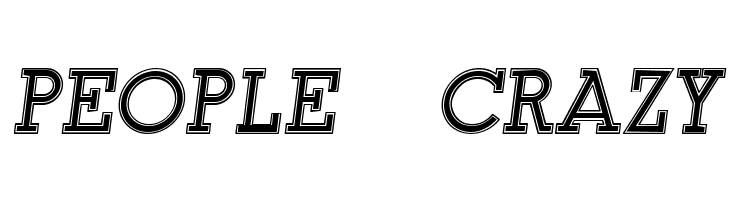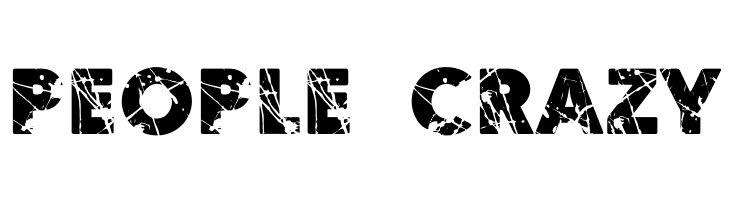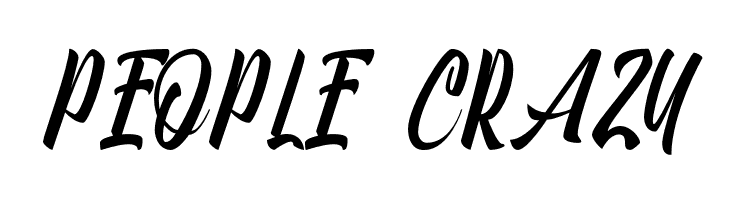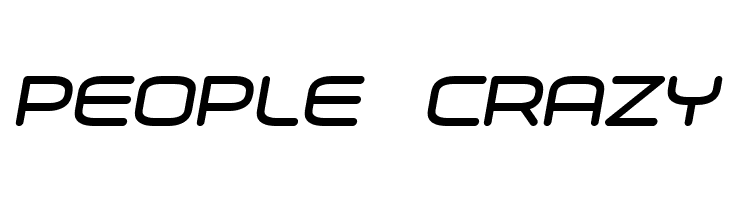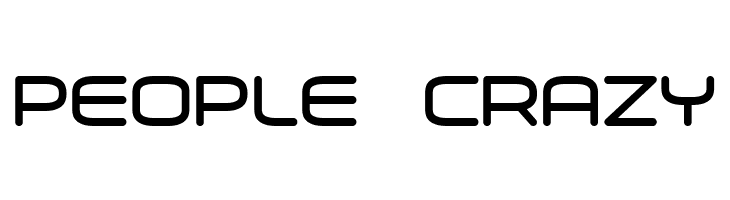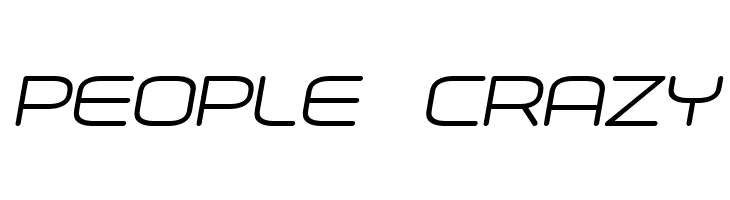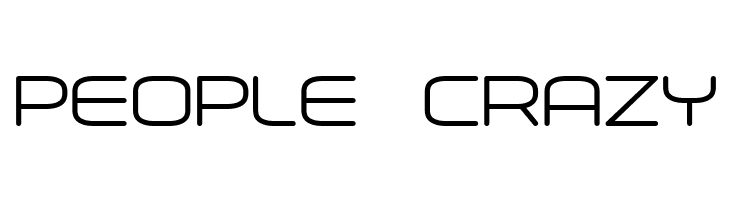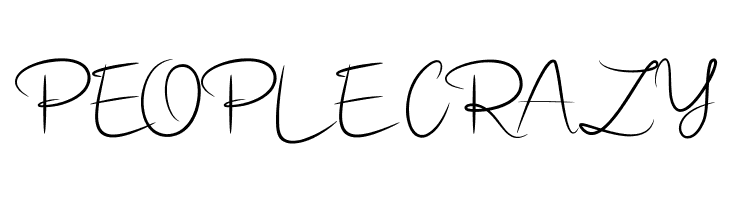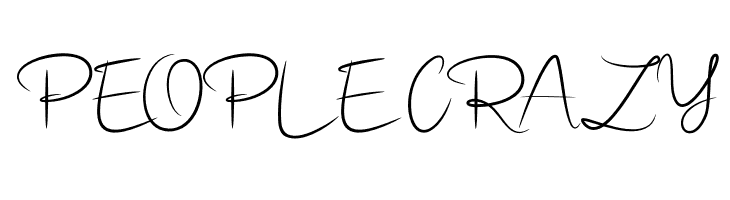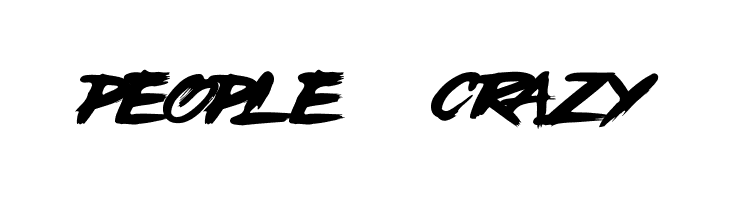
A classic serif font with elegant strokes and a timeless design.
An elegant italic serif font with smooth curves and sharp serifs.
Bold, italicized font with a three-dimensional outlined style.
A bold, double-line outlined font with a structured and symmetrical design.
A bold, dynamic script font with fluid, connected letterforms.
A bold, expressive handwritten font with high contrast and dynamic strokes.
A flowing, cursive font with elegant, interconnected letters and a handwritten style.
A modern, elegant script font with flowing, connected characters.
A bold, flowing script font with interconnected letters and a dynamic style.
A bold, playful font with a hand-drawn, organic style.
A bold, italic script font with a handwritten, flowing style.
A bold, distressed font with a rugged, vintage aesthetic.
A decorative font with each character depicted as a detailed face illustration.
A bold, dynamic brush-style font with expressive strokes and a sense of motion.
A bold, expressive brush-style font with dynamic, hand-painted strokes.
A flowing, cursive font with a natural handwritten style.
A playful, casual handwritten font with smooth, flowing lines and consistent stroke width.
A bold, playful handwritten font with thick, rounded strokes.
A playful, bold handwritten font with a casual and friendly style.
A bold, playful handwritten font with thick strokes and a casual style.
A bold, futuristic font with geometric shapes and cosmic textures.
A whimsical and flowing script font with elegant, looping strokes.
A whimsical and elegant script font with fluid, interconnected strokes.
A bold, distressed font with an eroded, rugged texture.
A bold, italic font with a dynamic and modern style.
A bold, geometric font with a modern and striking appearance.
A modern, rounded font with a sleek, futuristic design and consistent bold strokes.
A sleek, modern bold italic font with rounded edges and smooth curves.
A sleek, modern italic font with smooth curves and consistent stroke width.
A modern, geometric font with rounded edges and consistent spacing.
A playful, handwritten font with rounded, irregular letterforms.
An elegant and decorative script font with intricate swirls and loops.